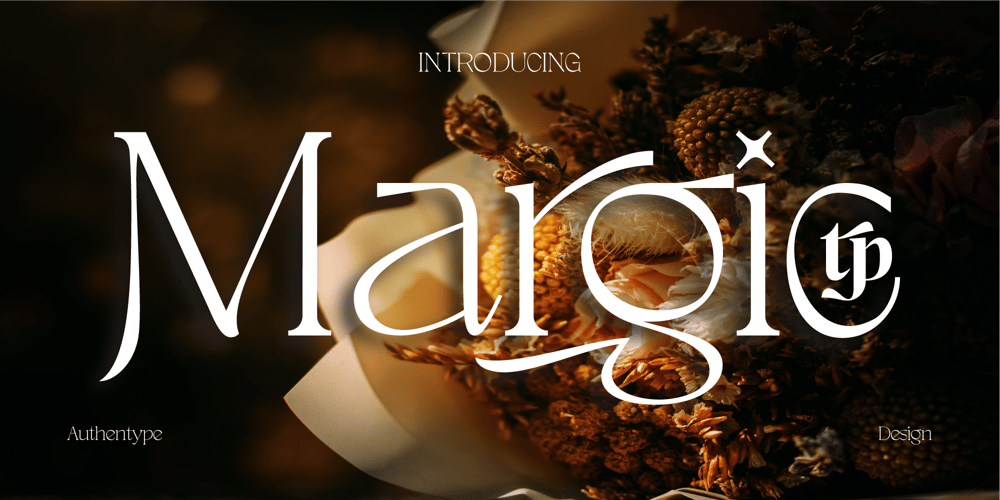
Margic Tp Font Family was designed by Ekayasa and published by Authentype. Margic Tp contains 9 styles and family package options. Margic TP – Magic of typeface with 2 types of characters. There are two types of letters by activating stylistic alternates you will get a very contrasting feel than regular letters. It was also followed by the addition of swash, many ligatures, and many languages. Standard glyphs uppercase and lowercase letters Numerals, a large range of punctuation and ligatures. Swashes, Stylistic Set Multilingual Works on PC & Mac. Simple installations, accessible in Adobe Illustrator, Adobe Photoshop, Adobe InDesign, even work on Microsoft Word. PUA Encoded Characters – Fully accessible without additional design software. Fonts include multilingual support for; ä ö ü Ä Ö Ü ß ¿¡ Image used: All photographs/pictures/logo/vectors used in the preview are not included, they are intended for illustration purposes only.Thank you